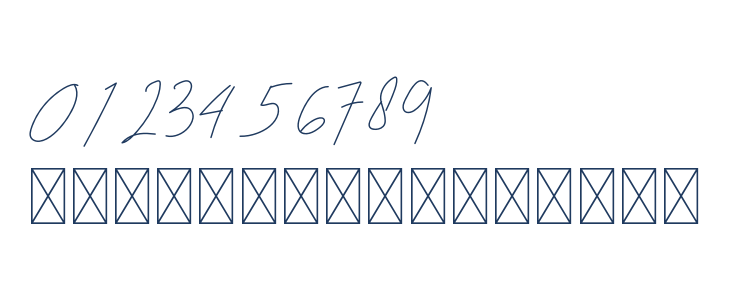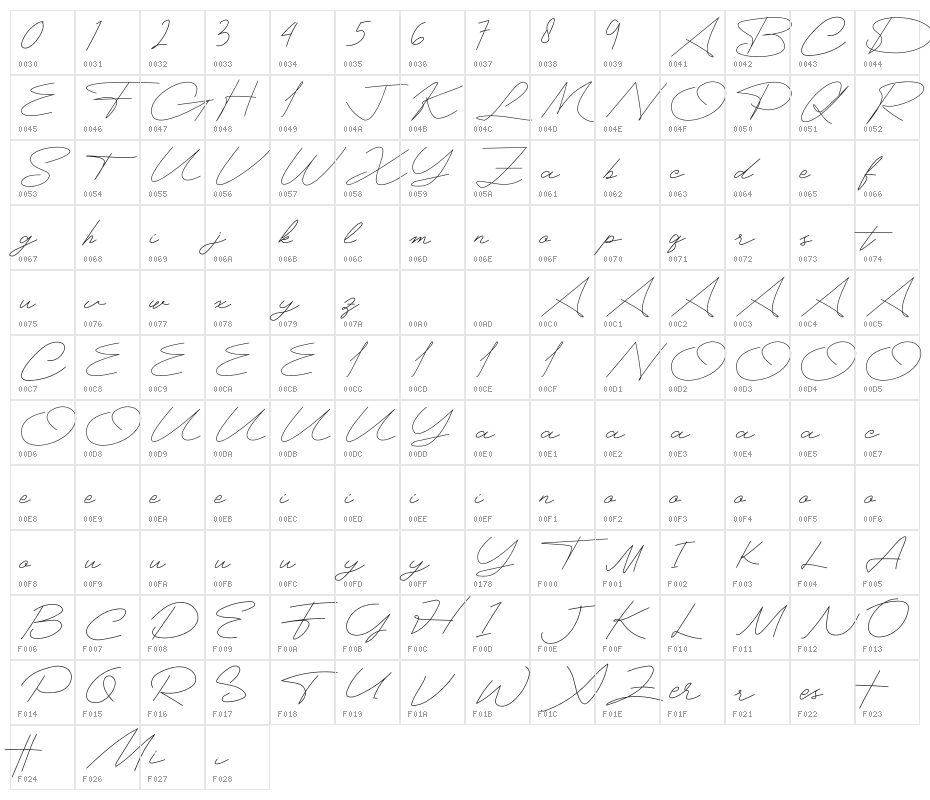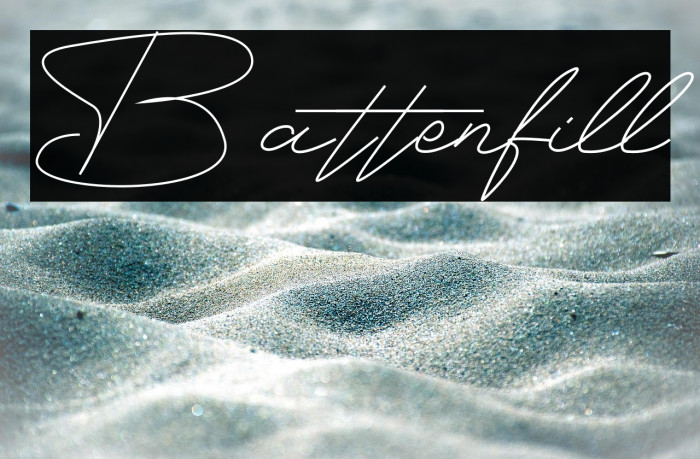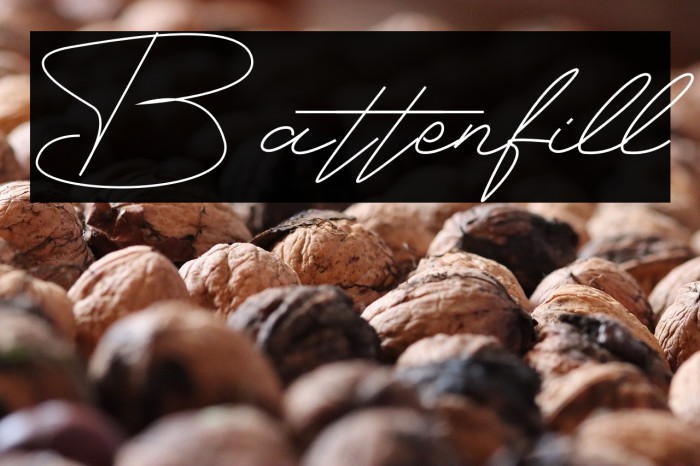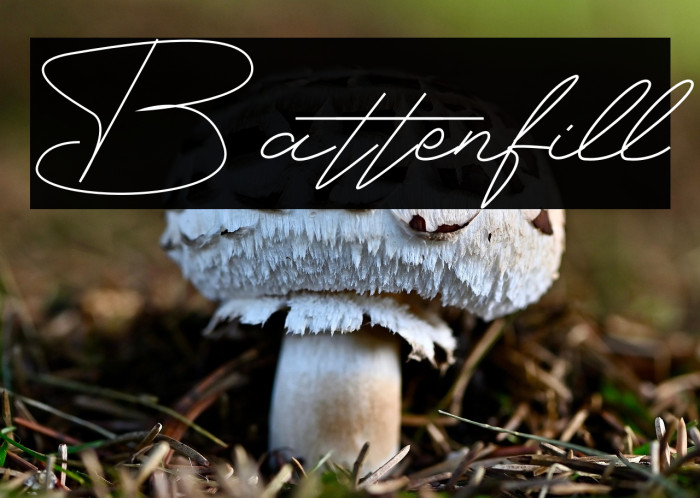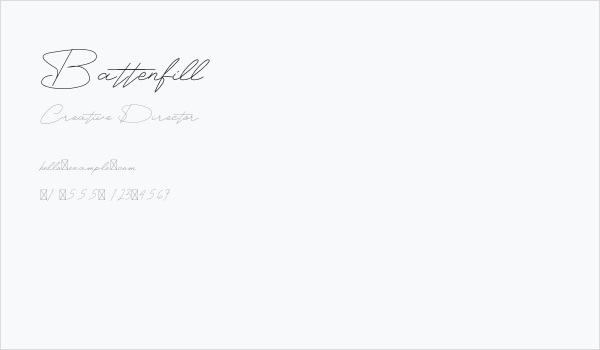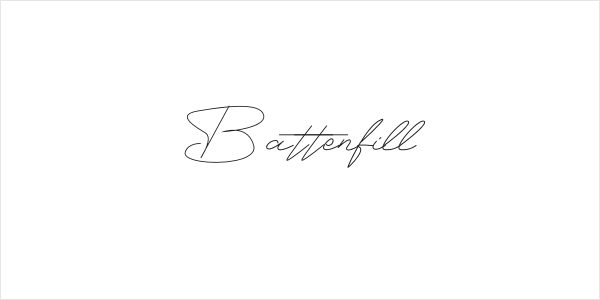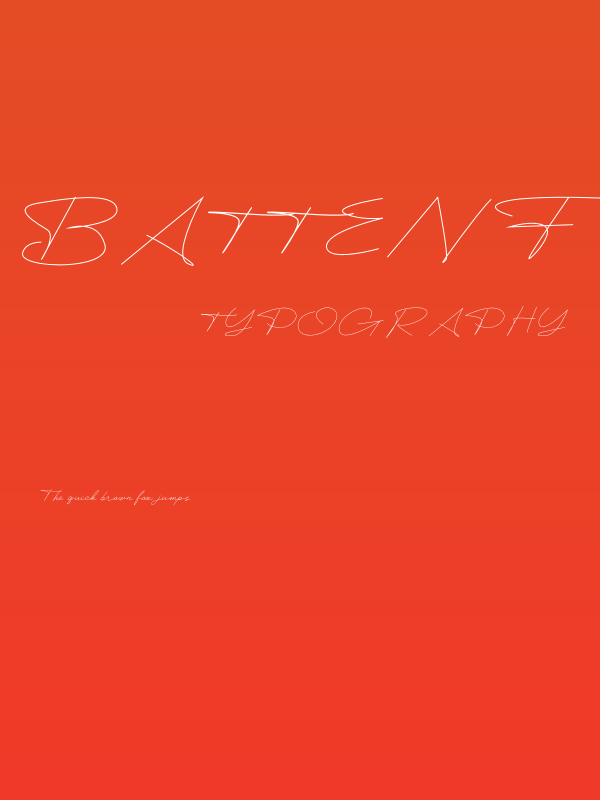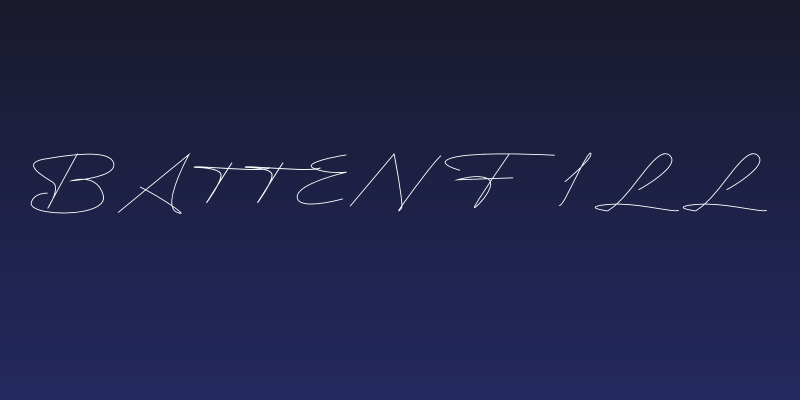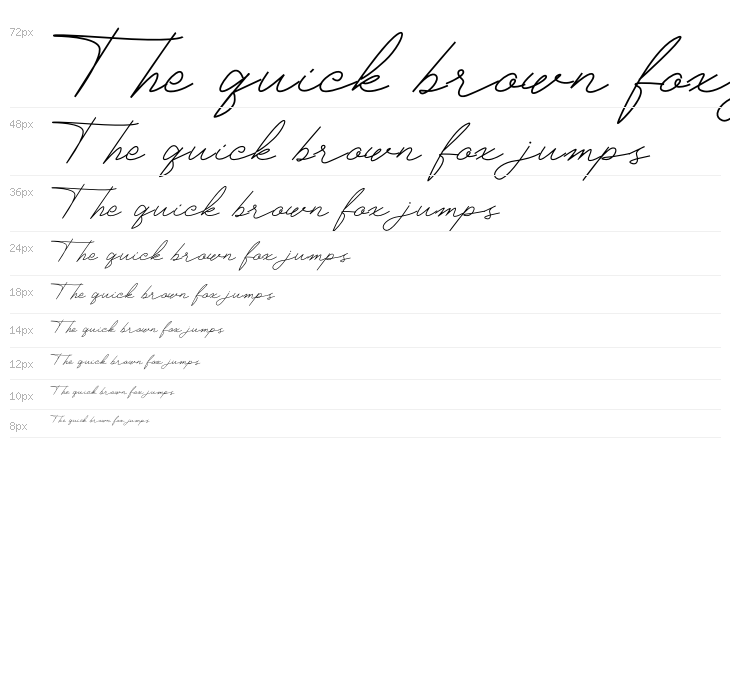
Battenfill Font
Battenfill Description
This elegant script font features a flowing, cursive style that mimics natural handwriting. The uppercase letters are slightly more restrained, maintaining a consistent height, while the lowercase letters exhibit graceful loops and connections, enhancing the fluidity of the text. The numerals are clear and legible, maintaining the same cursive style, which adds a touch of sophistication. The font's thin strokes and gentle curves make it ideal for adding a personal, handwritten touch to any project. Its overall appearance is both classic and modern, suitable for a variety of design needs.
| Overall Style | Classic |
| Use Case | Logos, Invitations, Personal Branding |
| Proposed Projects | Ideal for wedding invitations, greeting cards, personal branding, and elegant stationery. |